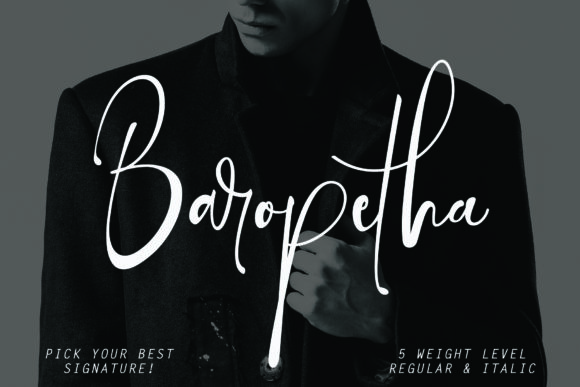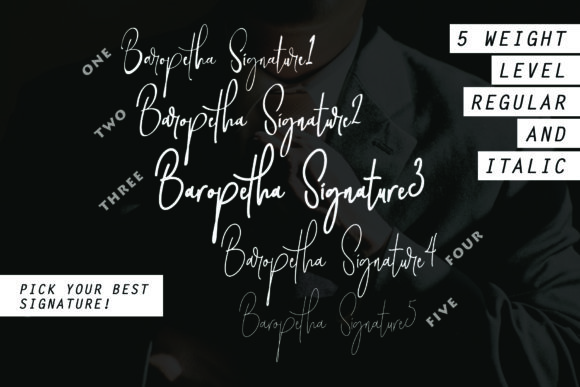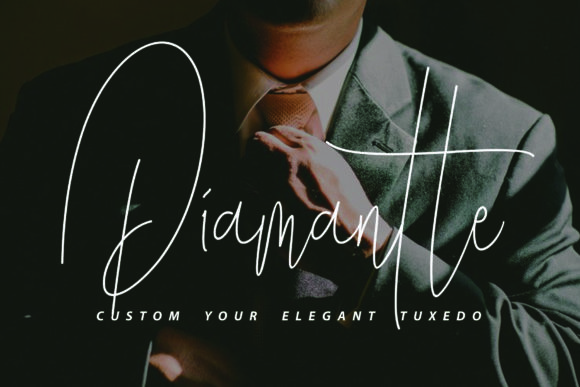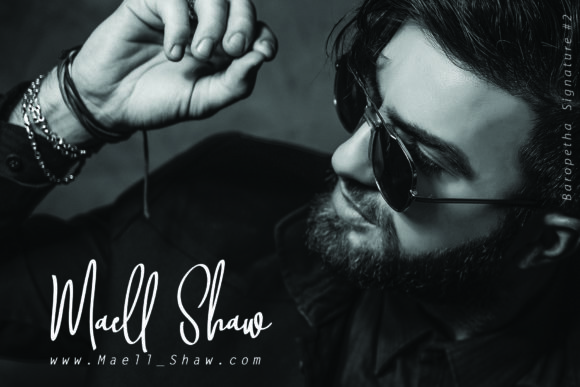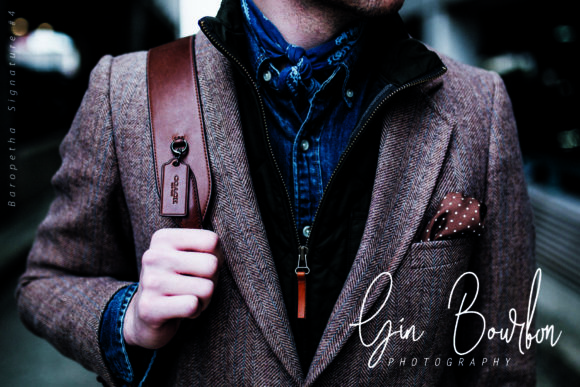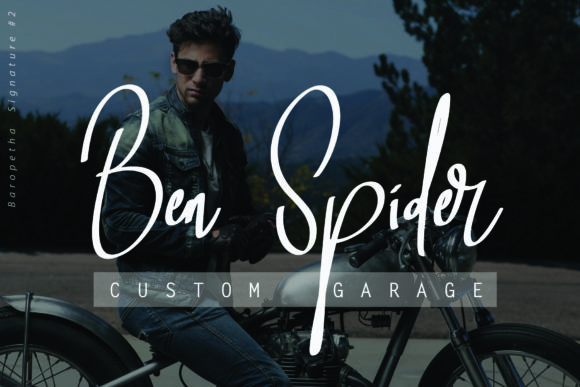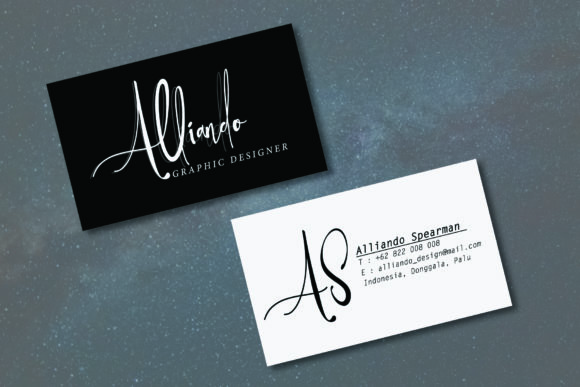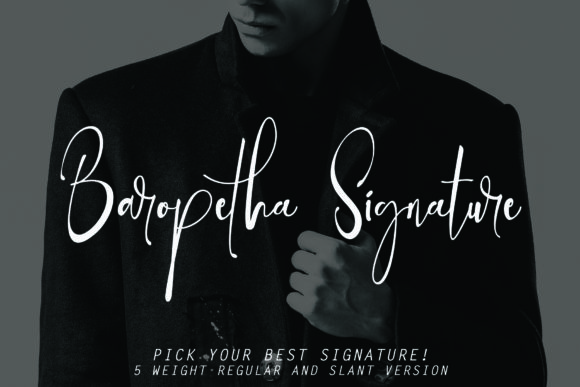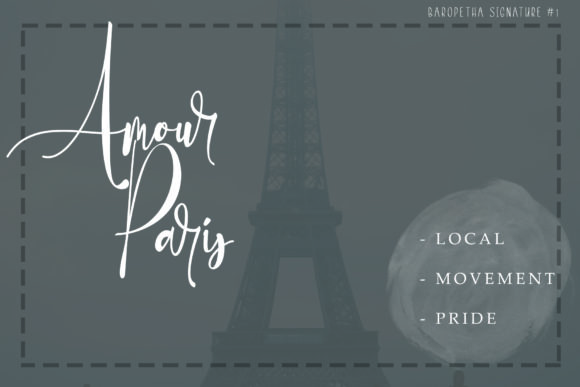
Baropetha Family Font
About Baropetha Family Font
The Baropetha is a simple, yet classy font family. It includes 5 elegant weights in a signature and italic style.
It’s catchy, stylish, has a great readability, and is absolutely easy to use.
It can be used for watermarks, photography, signatures, logos, album covers, business cards, quotes, and many other design projects.